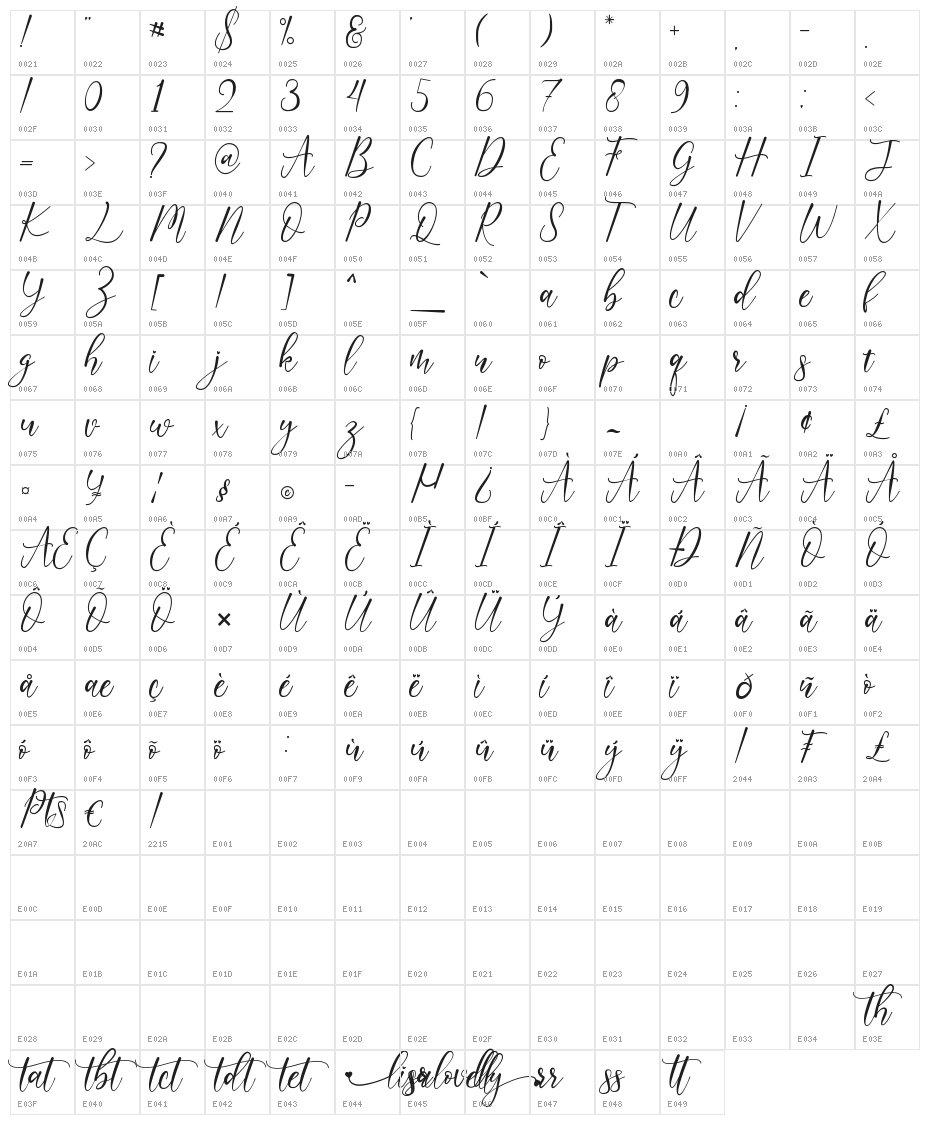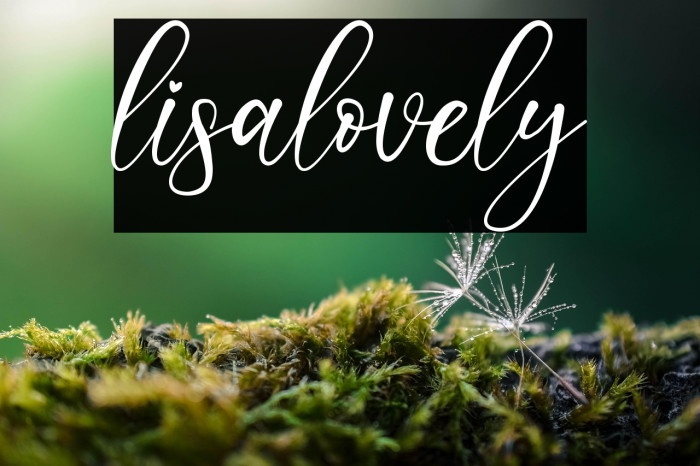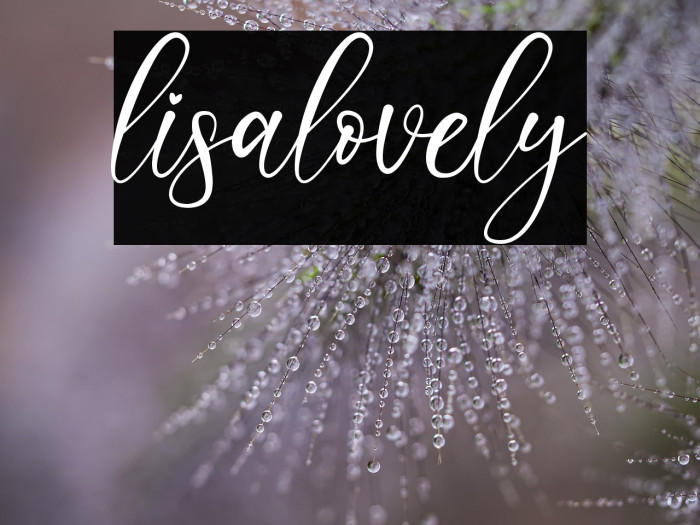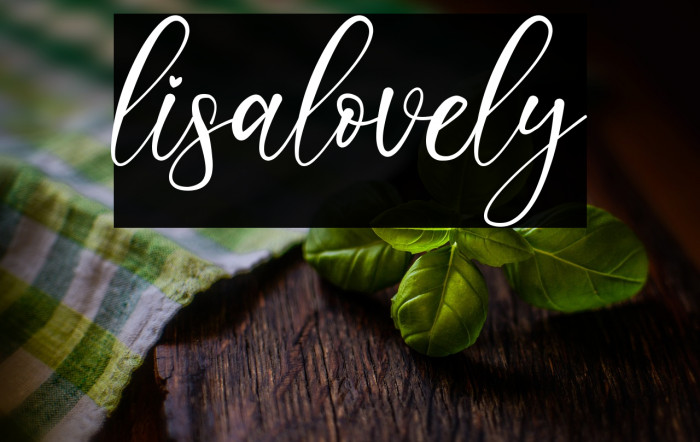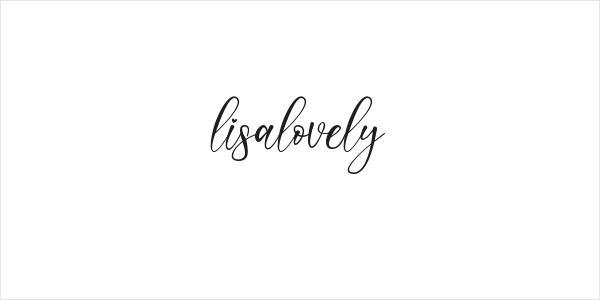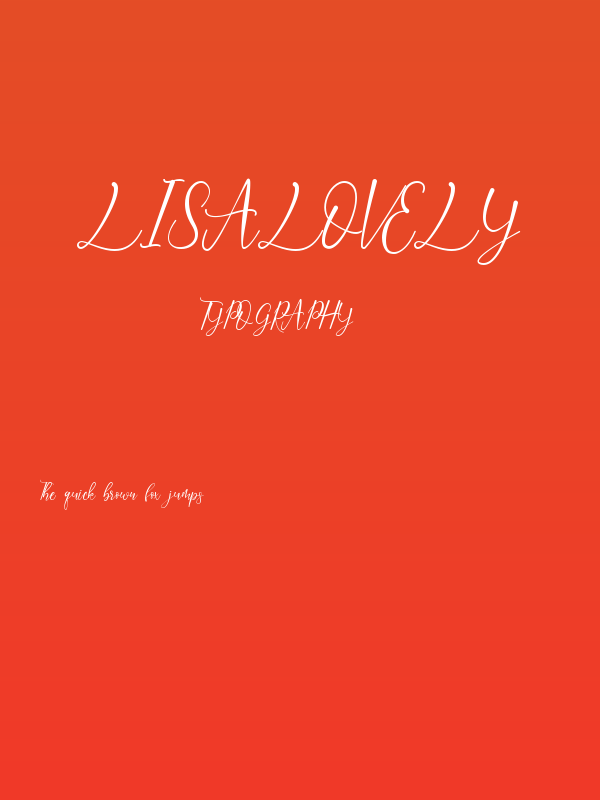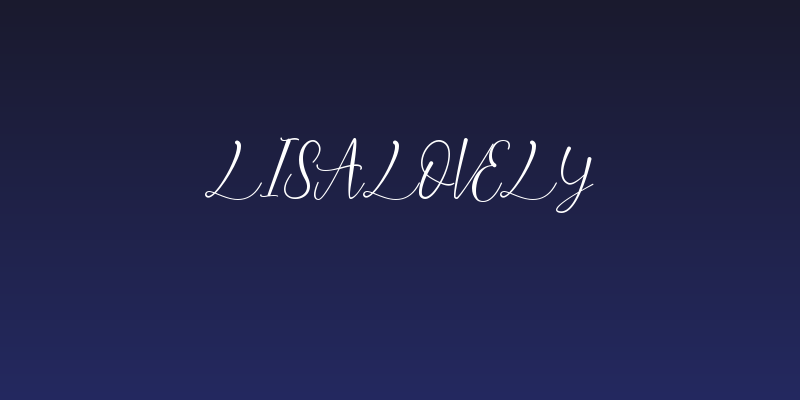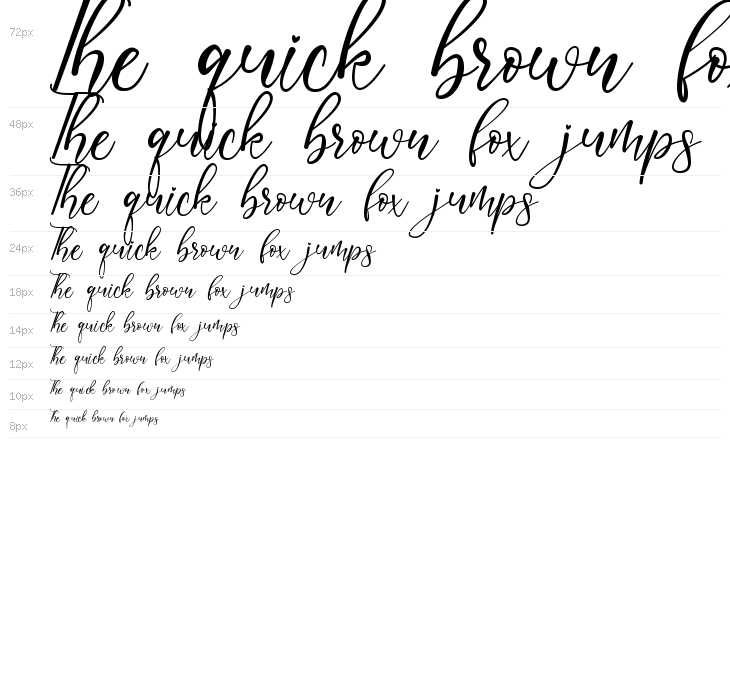
lisalovely Font
lisalovely Description
This font exudes a charming and elegant script style, characterized by its flowing, cursive letters that mimic the fluidity of natural handwriting. The uppercase letters are tall and slender, with graceful loops and swirls that add a touch of sophistication. The lowercase letters maintain a consistent flow, with some characters featuring unique flourishes that enhance their visual appeal. The numerals are stylish and align well with the overall script aesthetic, while the special characters are thoughtfully designed to complement the font's elegant nature. This font is perfect for projects that require a personal, handwritten touch.
| Proposed Projects | Ideal for wedding invitations, greeting cards, personal branding, and elegant logo designs. |